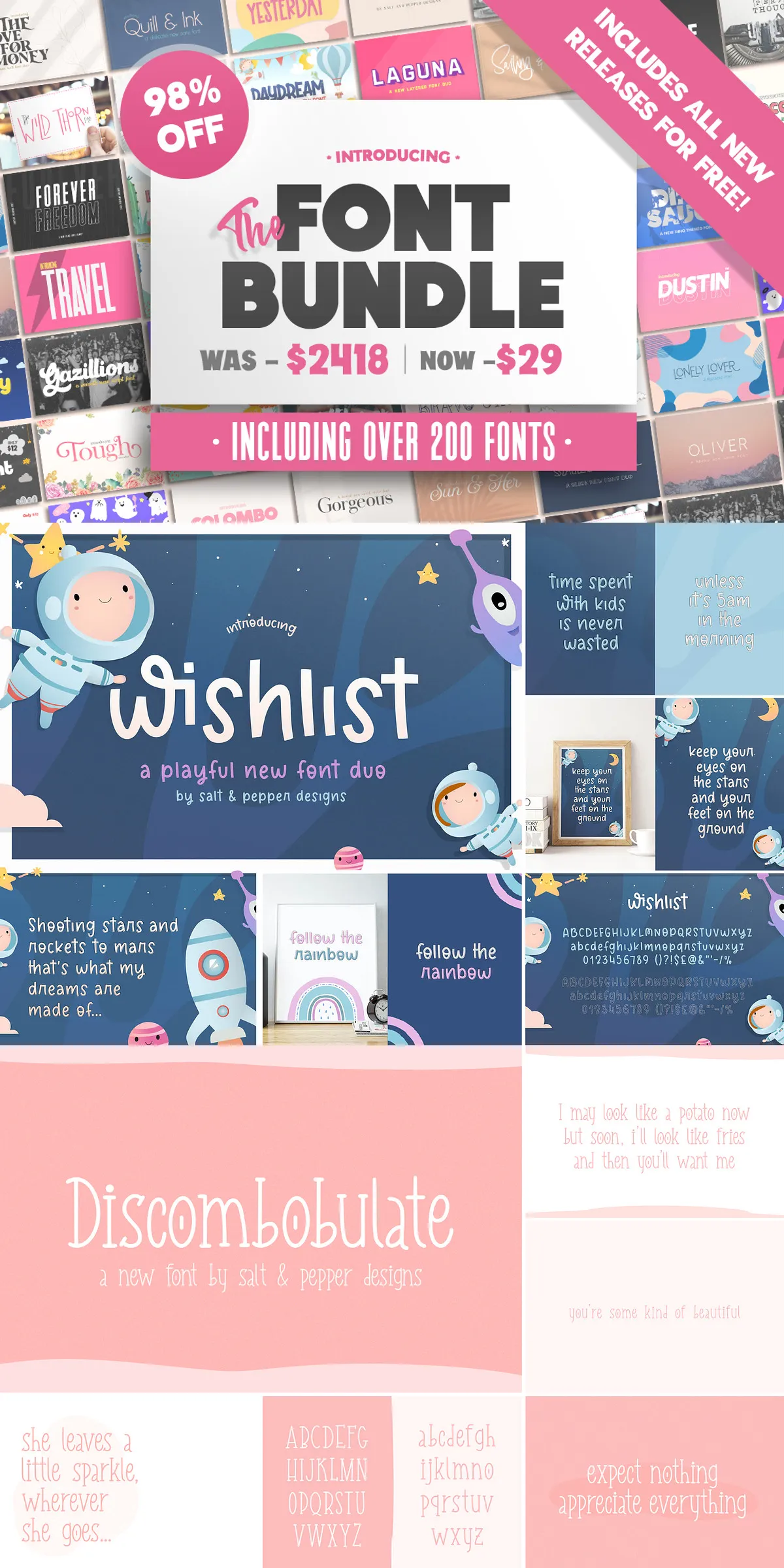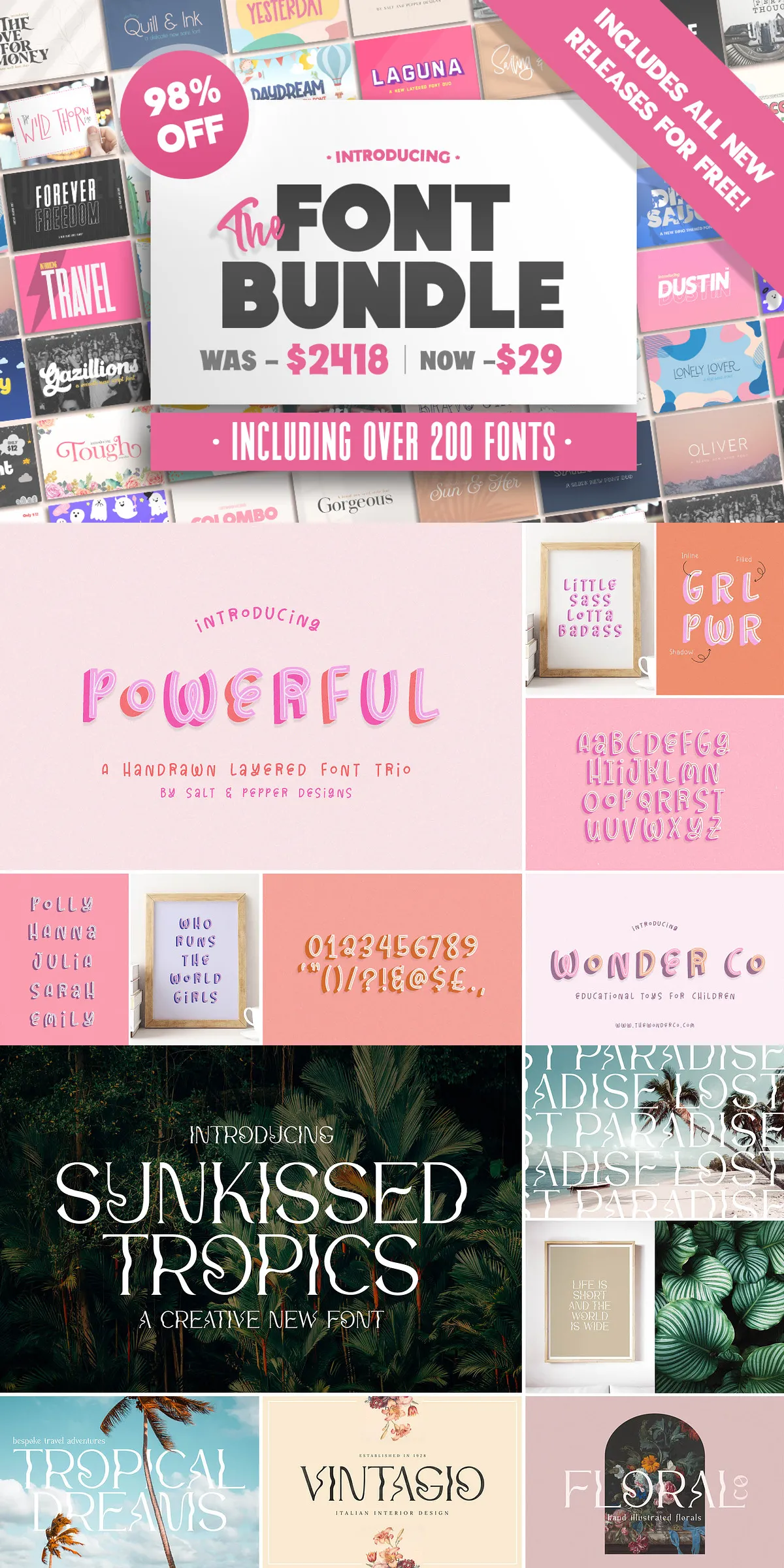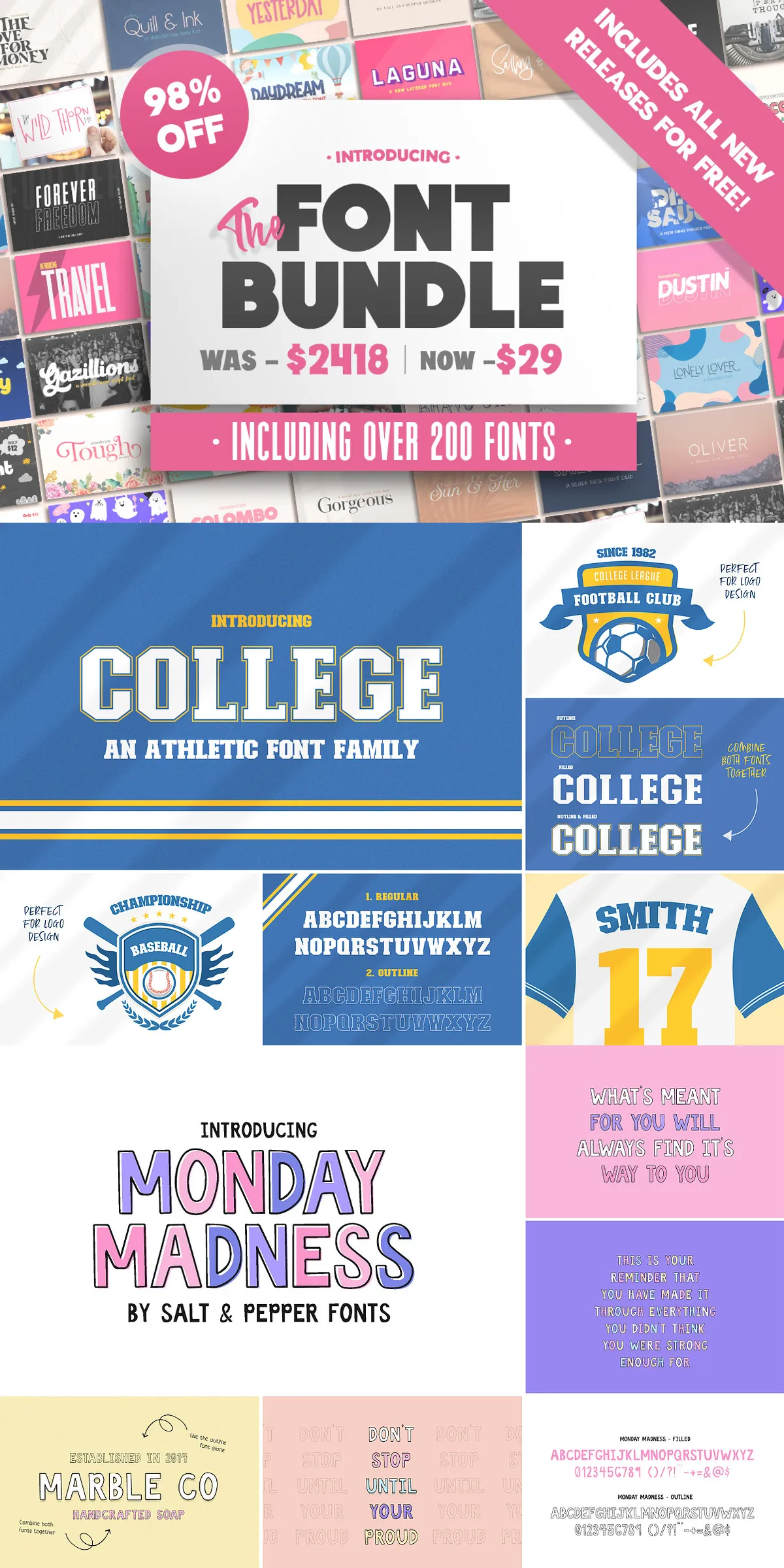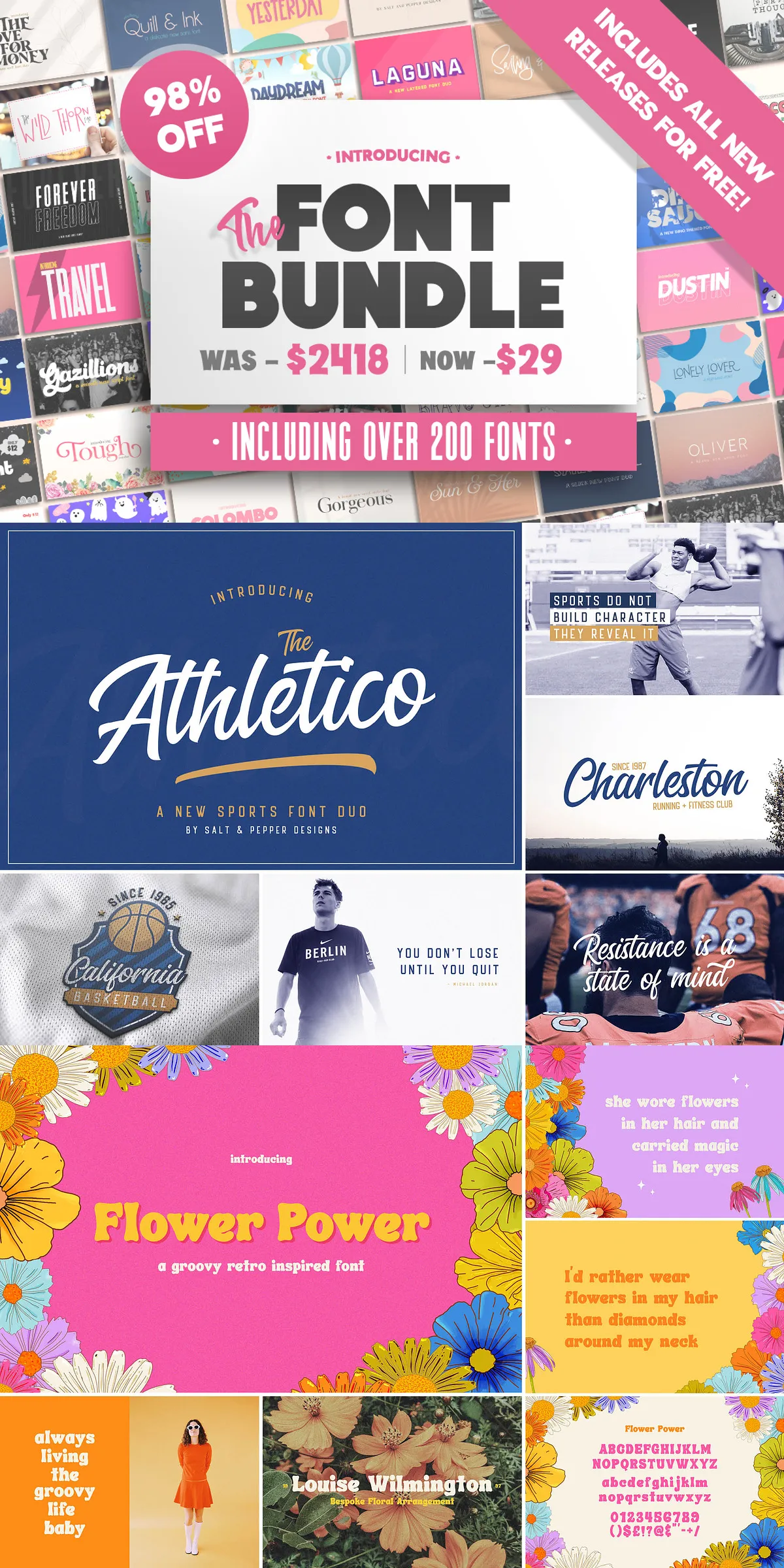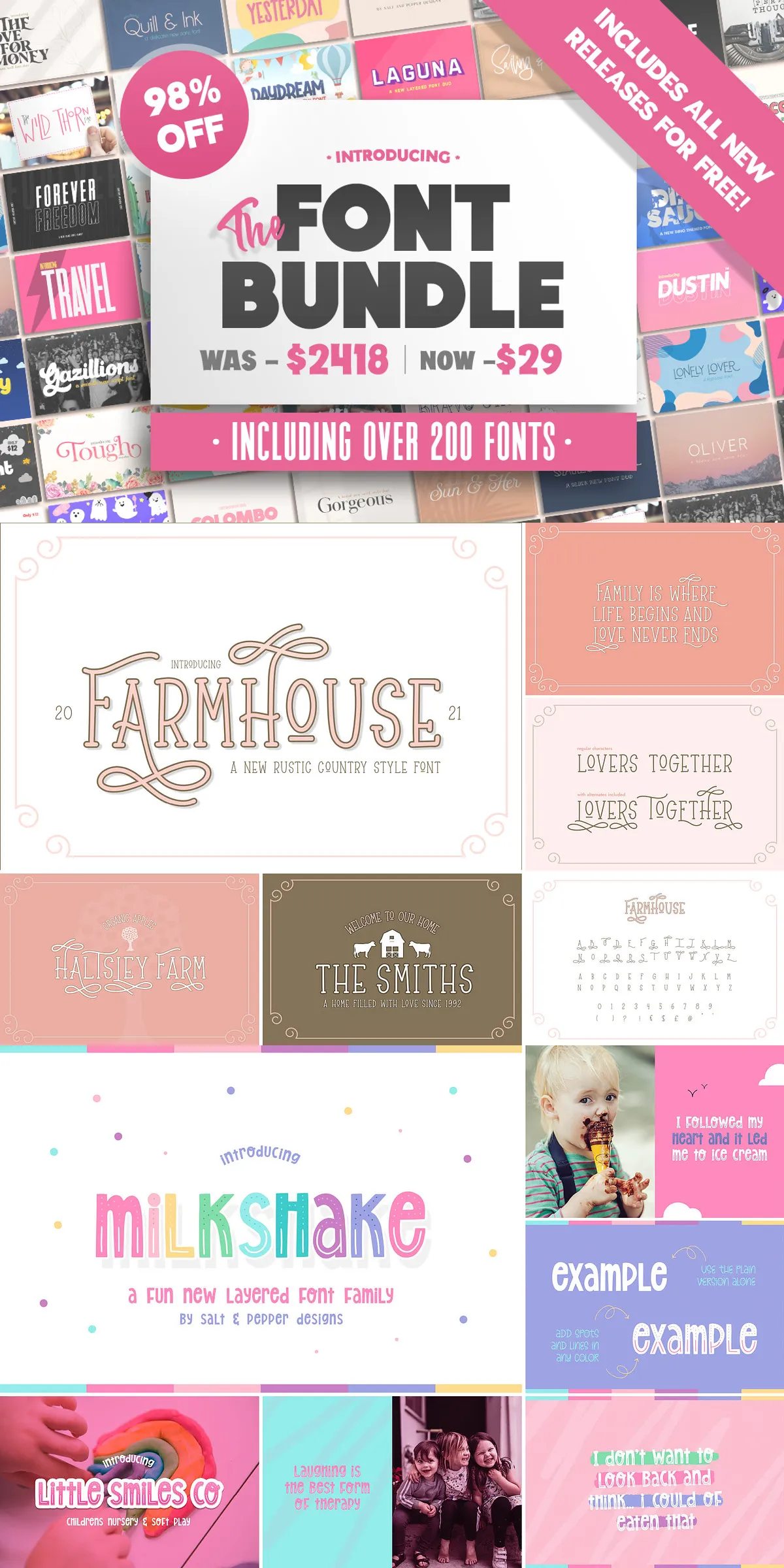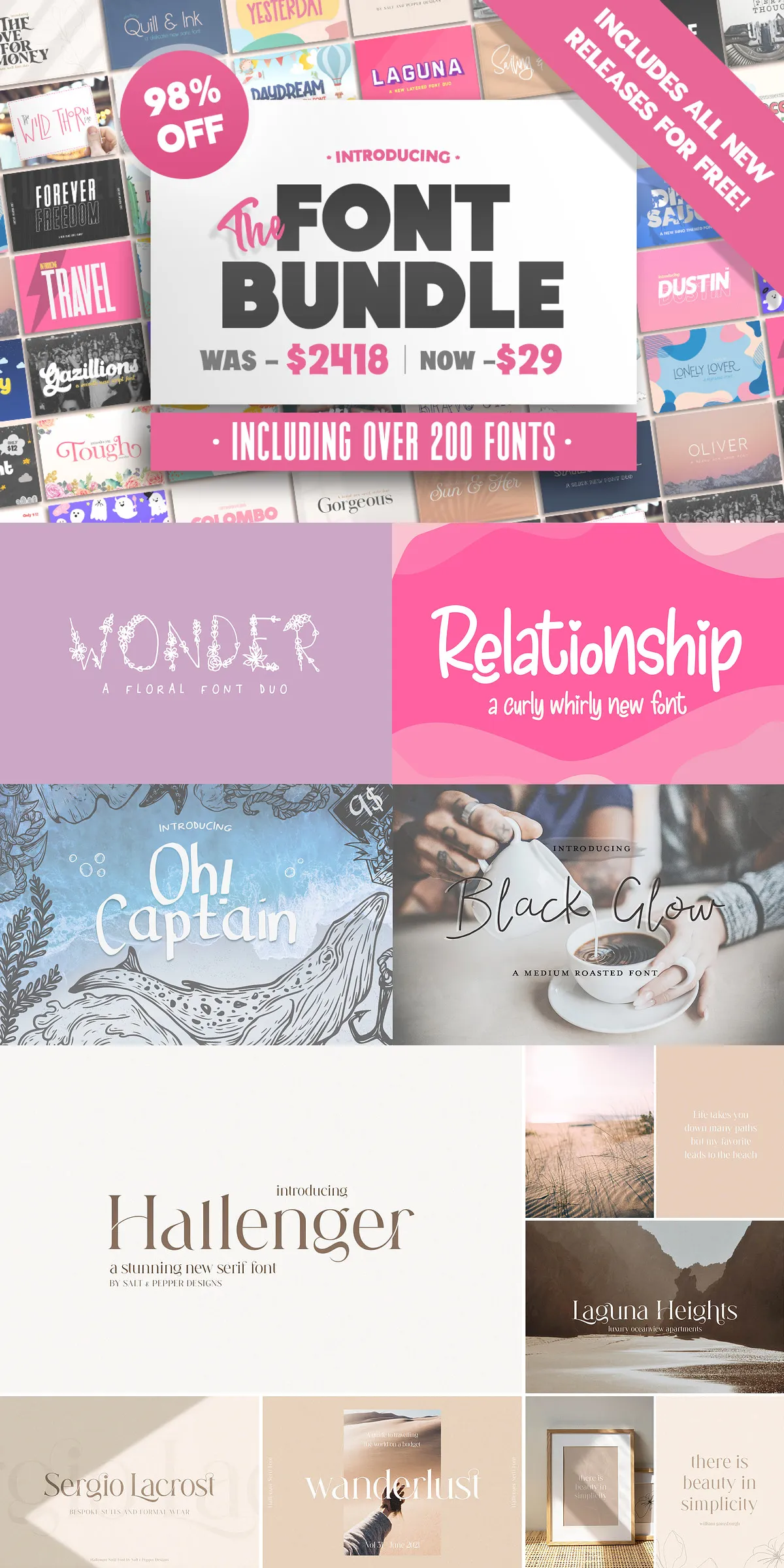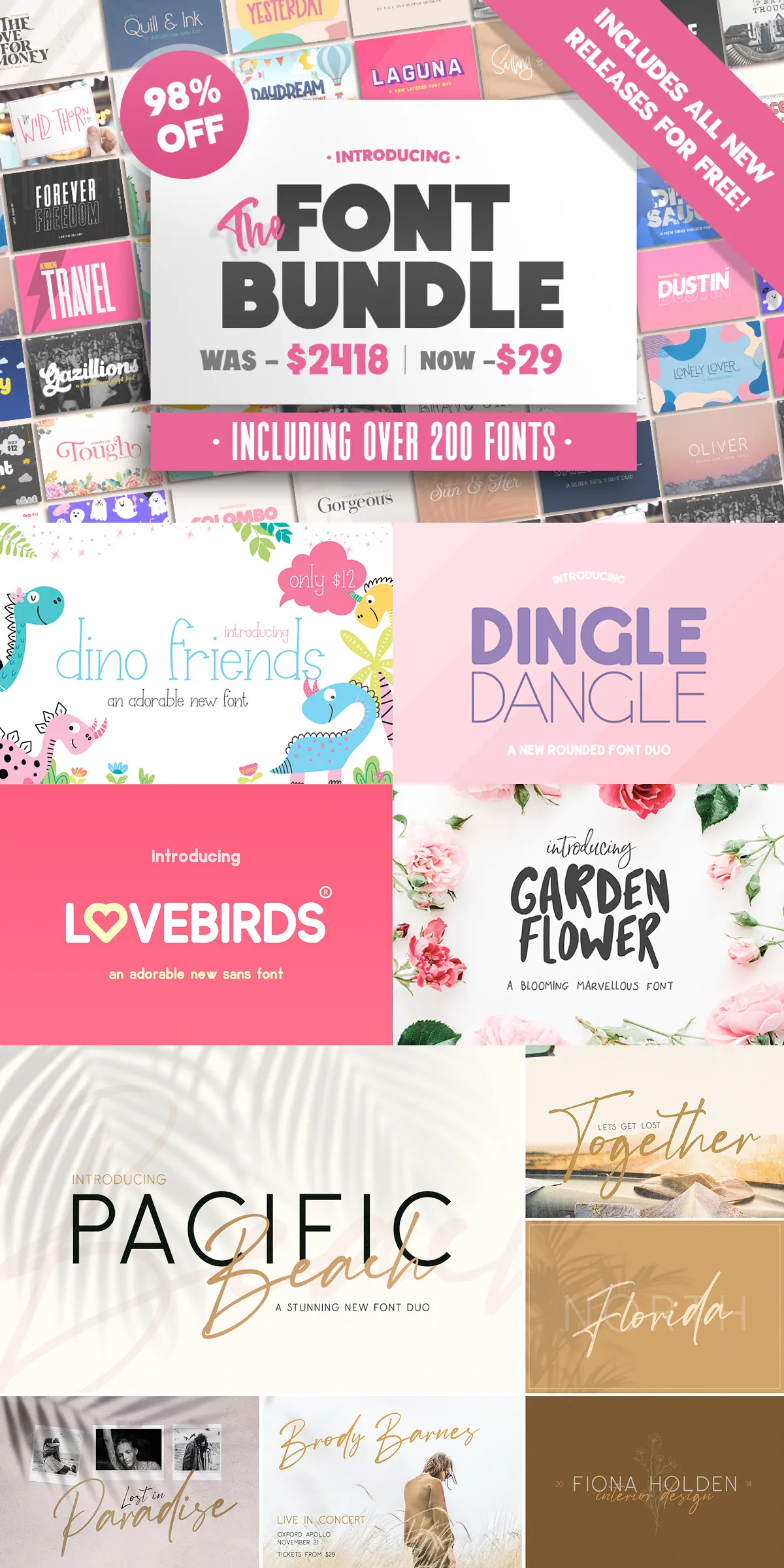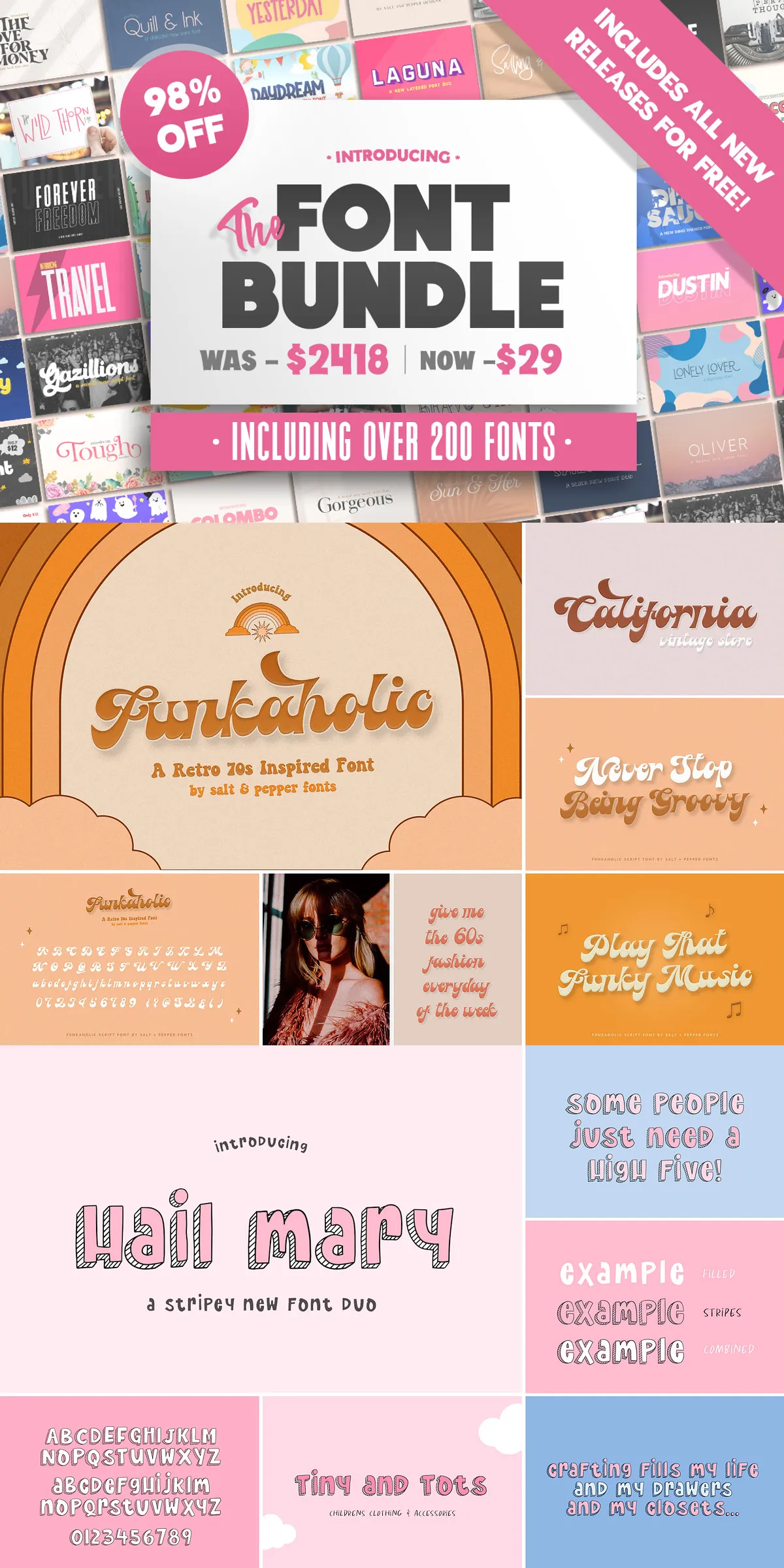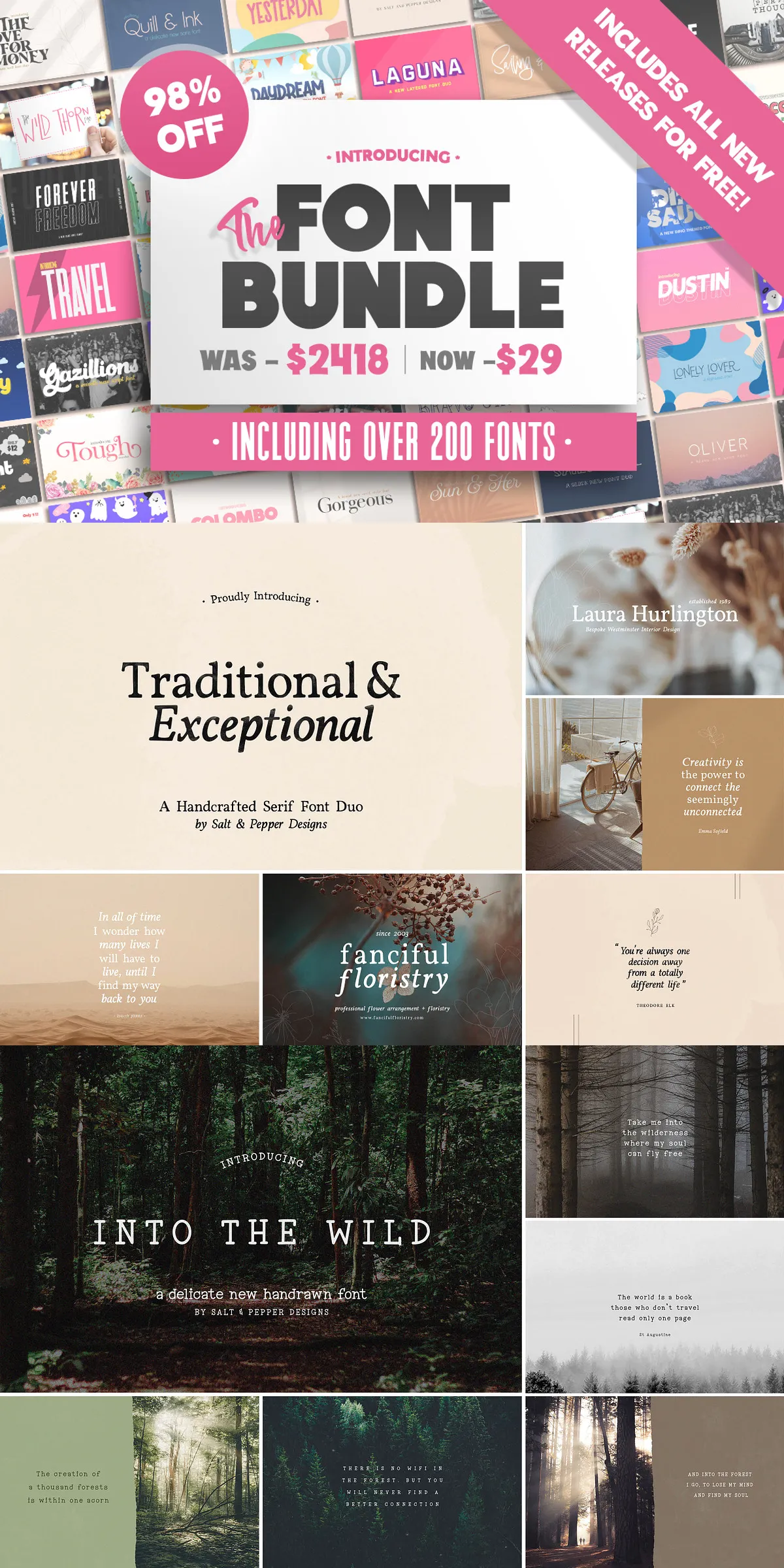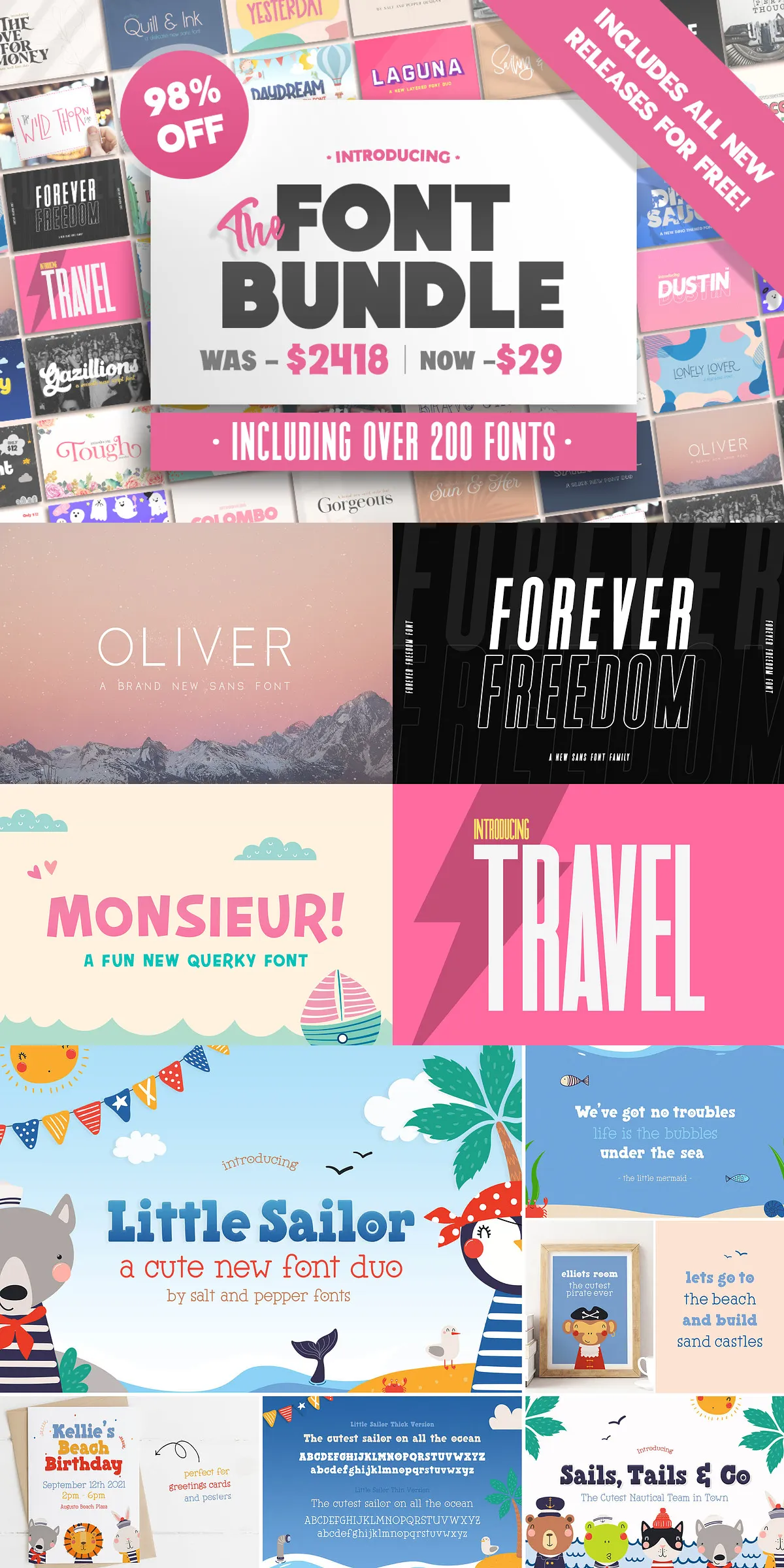
Why This Bundle Is a Game-Changer for Designers
Imagine having access to thousands of fonts—every style you could ever need—in one seamless download. Whether you’re crafting logos, designing social media graphics, or working on print media, Salt & Pepper Designs gives you the tools to stand out instantly. From bold display fonts to delicate script styles, minimalist sans serifs to retro groovy typefaces, this bundle covers the full spectrum of modern and classic typography.
Perfect for Branding, Merch, and Creative Projects